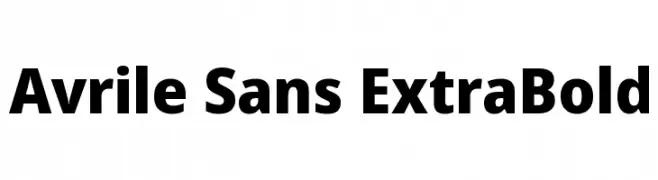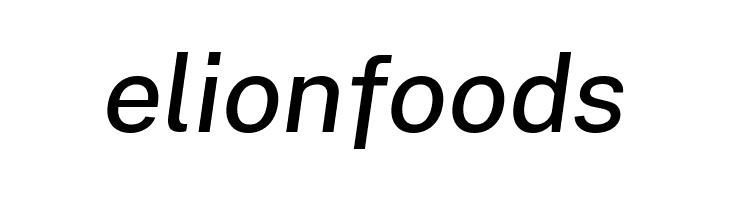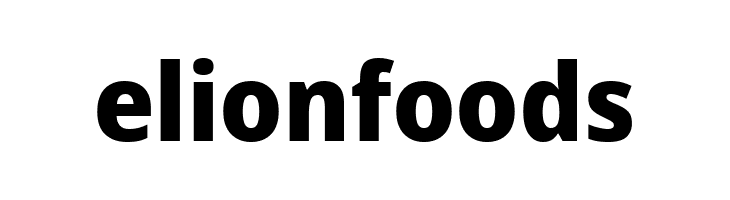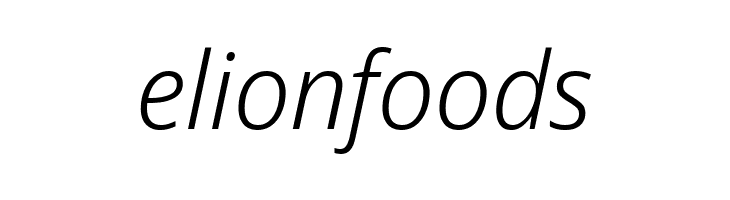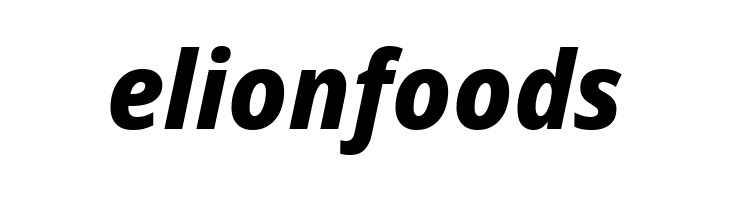
A modern, light sans-serif font with a clean and minimalistic design.
A modern, medium-weight sans-serif font with an italic style and clean lines.
A modern sans-serif font with an italic slant, offering clarity and versatility.
A clean, minimalist typeface with thin, uniform strokes and a modern aesthetic.
A modern, thin sans-serif font with clean lines and balanced spacing.
A sleek, modern sans-serif font with an extra light, italic style.
A bold, modern sans-serif font with strong, uniform strokes.
A sleek, modern sans-serif font with light weight and italic style.
A bold, italic sans-serif font with a modern and dynamic style.
A clean, modern sans-serif typeface with consistent stroke width and balanced spacing.